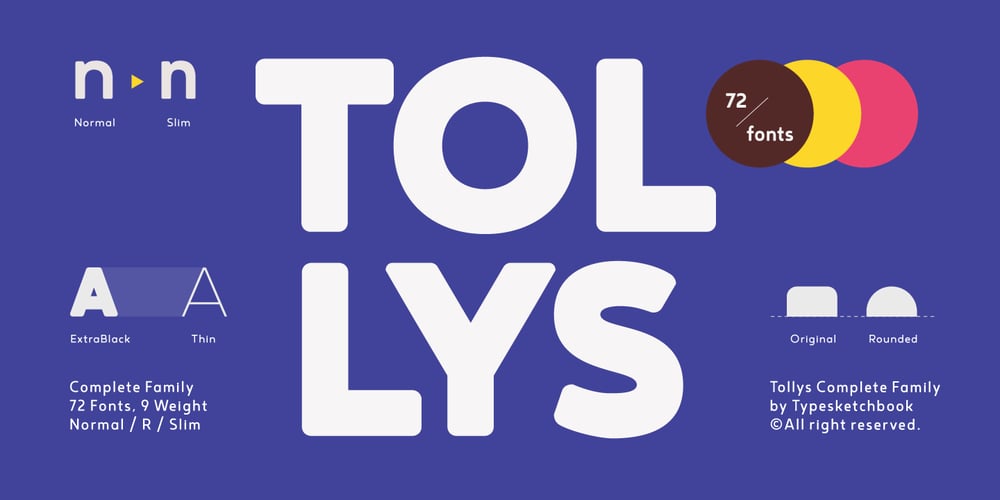
Tollys Font Family was designed by Chatnarong Jingsuphatada and published by Typesketchbook. Tollys contains 72 styles and family package options. Tollys is an extra large super family of 72 fonts! Tollys has such a big abundance of contrast, styles and weights. Typesketchbook consists of a very usable, clean and modern sans typeface with normal and rounded options. The font looks clean and geometric but it’s designed with unusual stylistic features to give the Tollys font a special and unique touch. The complete Tollys type family includes 9 weights with rounded and slim for each of them all in all 72 fonts for a multifunctional usage, especially for cooperative work, such as website, magazine, editorial, publishing , as well as packaging.